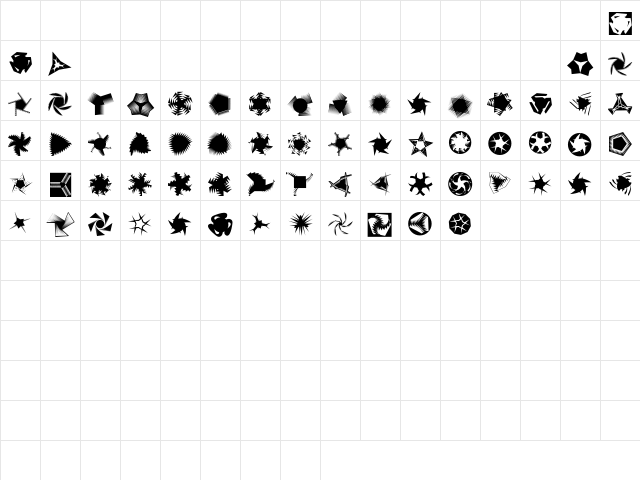
AIStopperRosetten Regular Free Font
AIStopperRosetten Regular
Design Context for AIStopperRosetten
AIStopperRosetten is a composed and adaptable typeface that performs quietly and consistently across a wide range of design contexts.